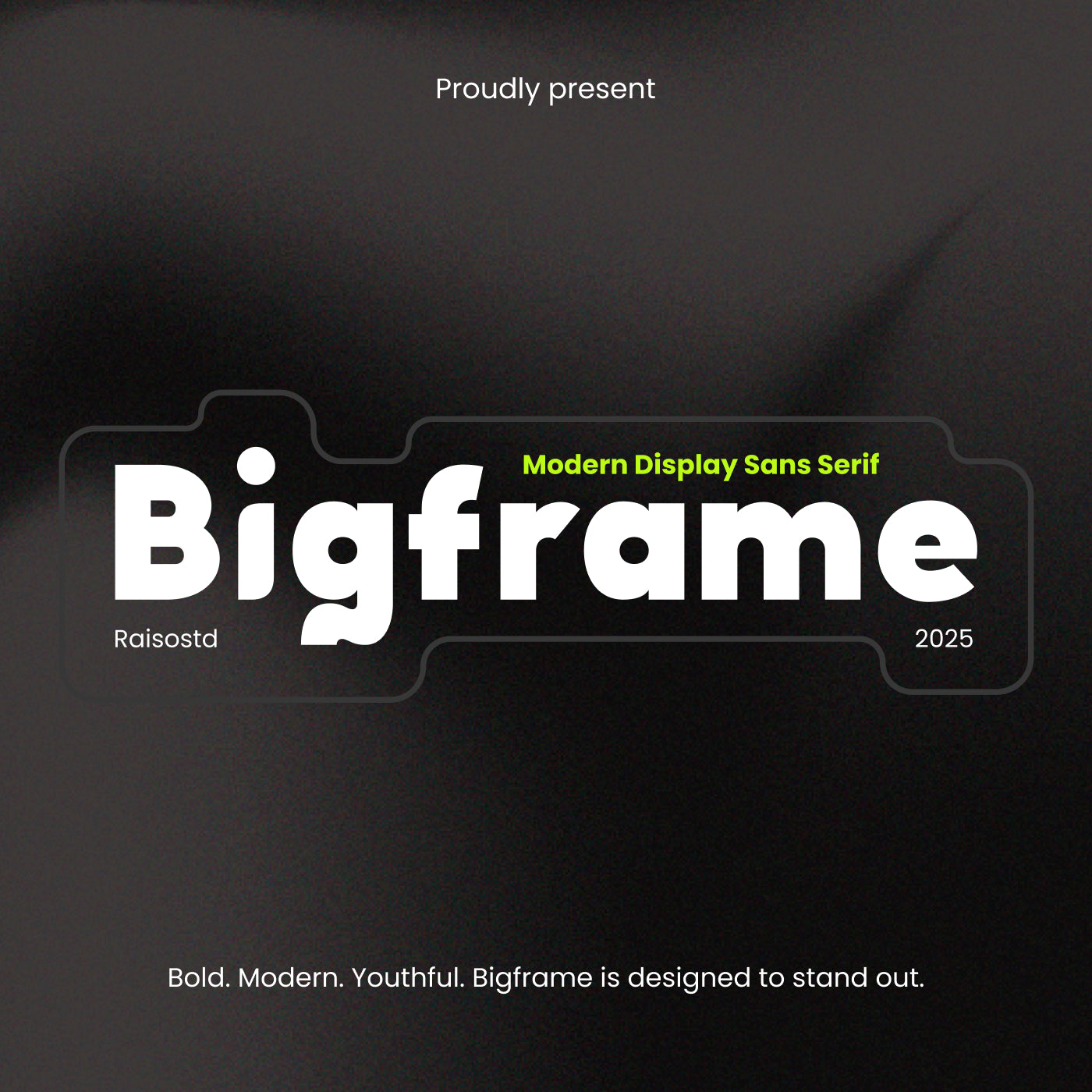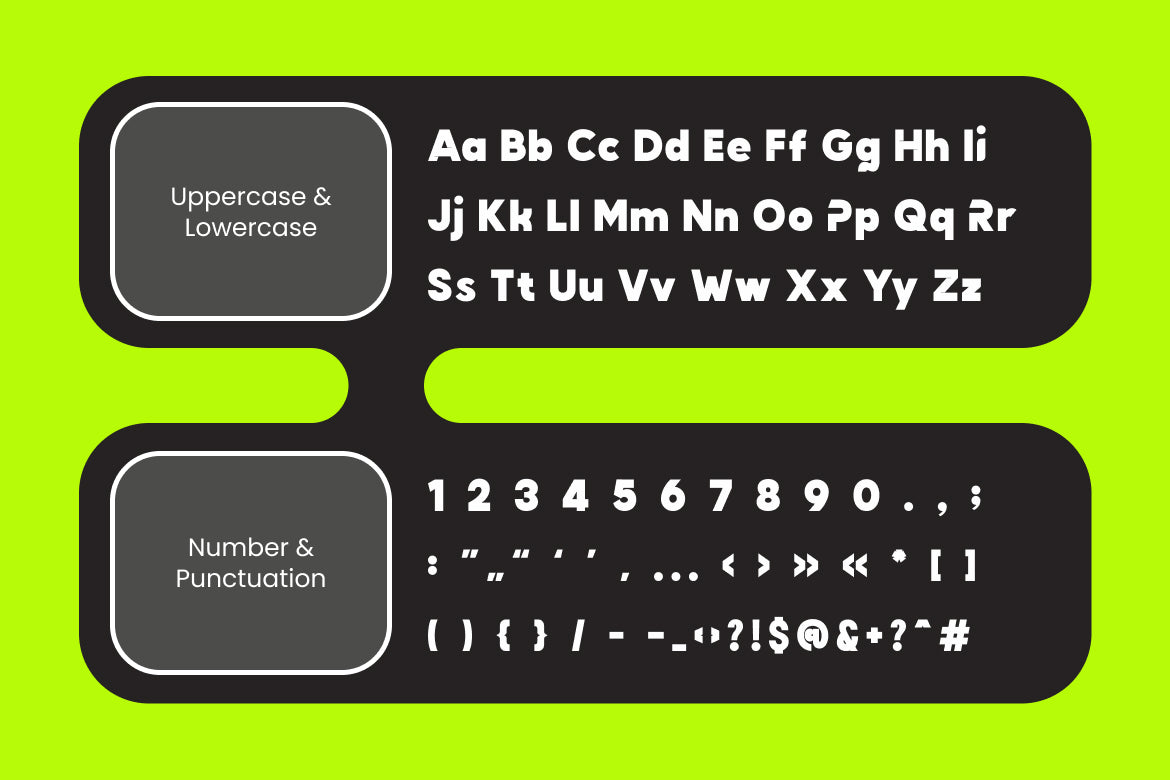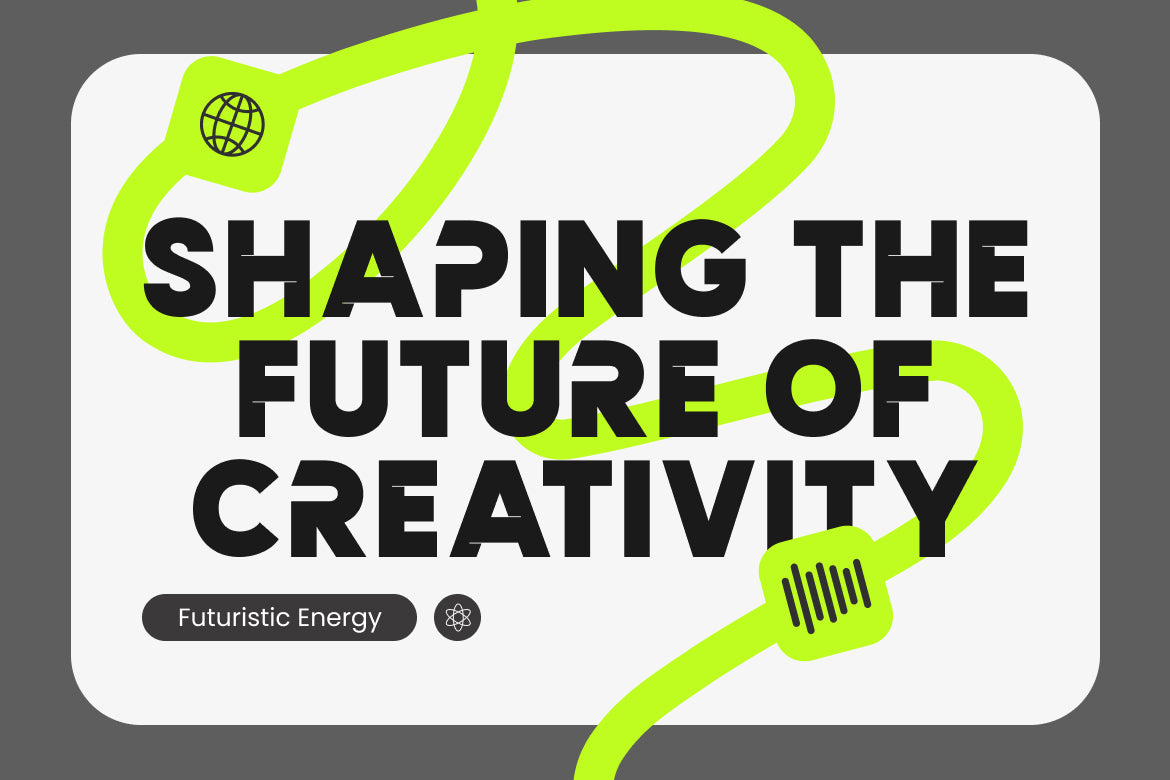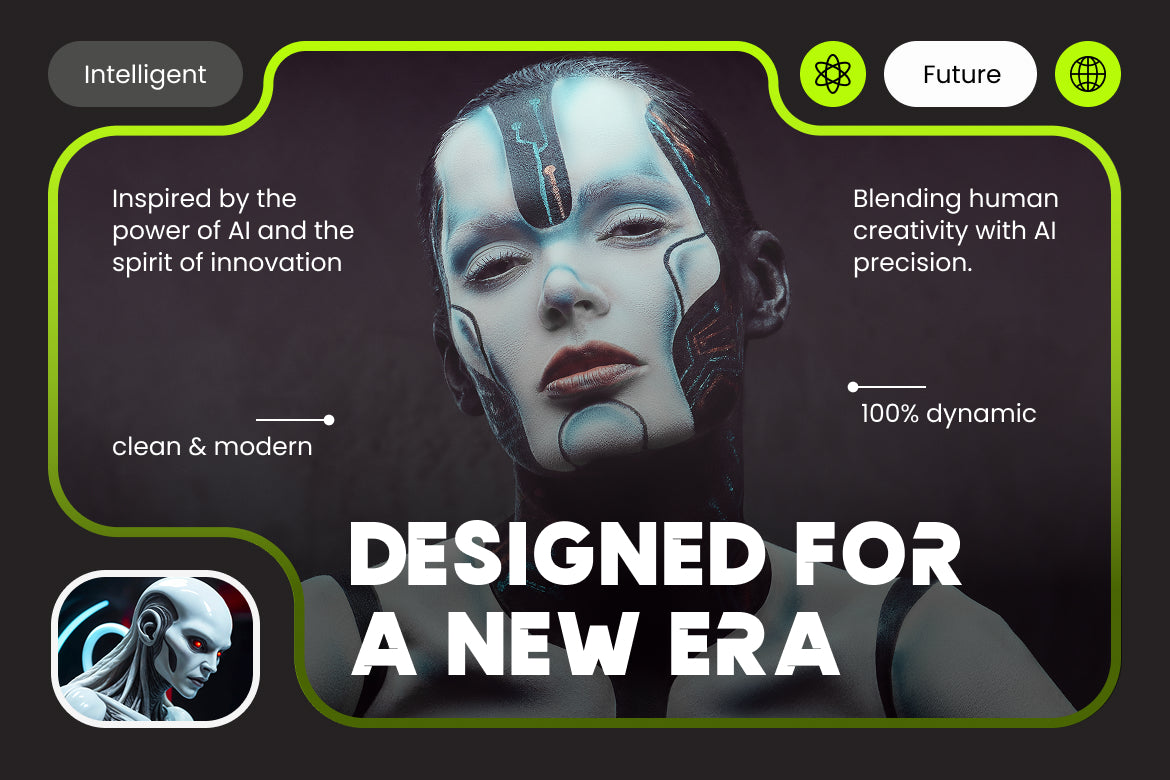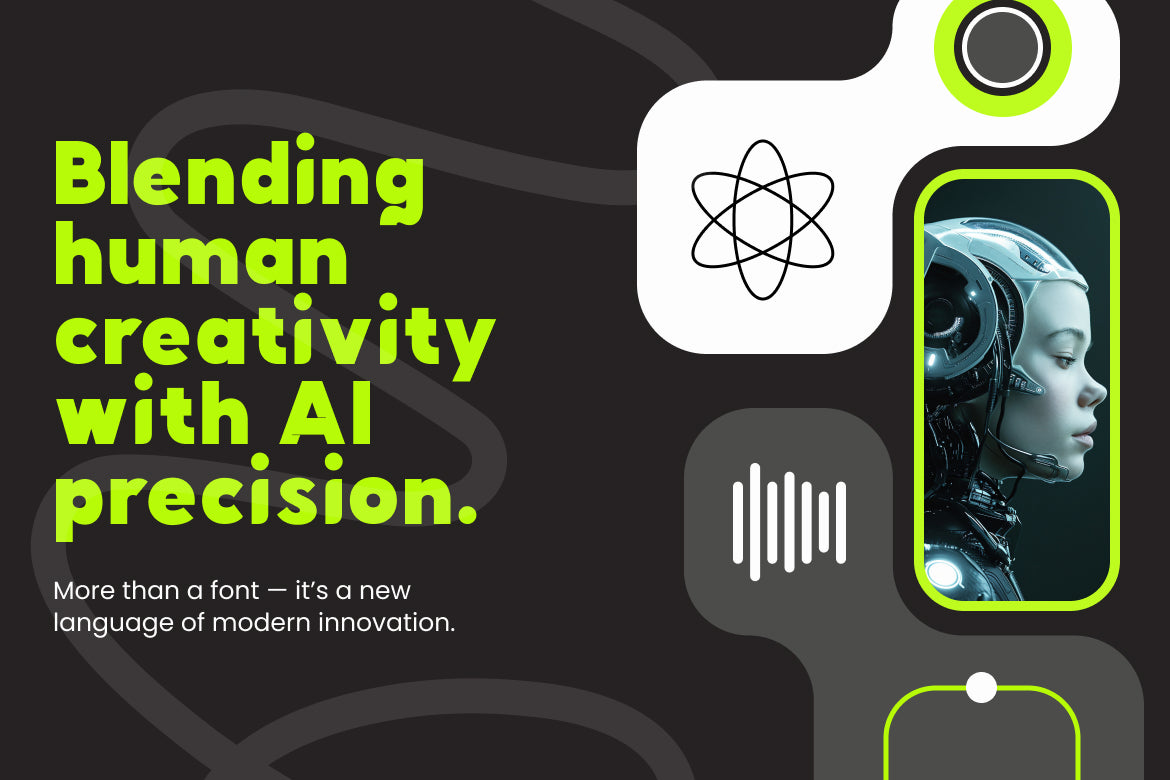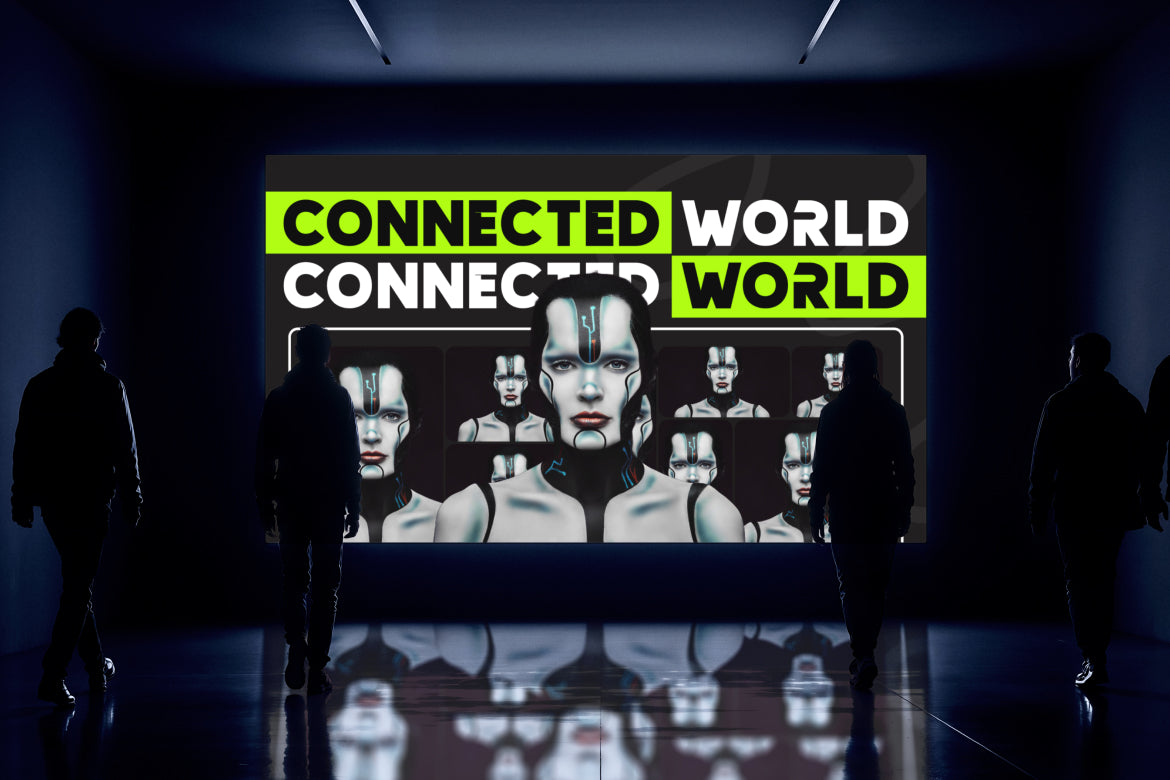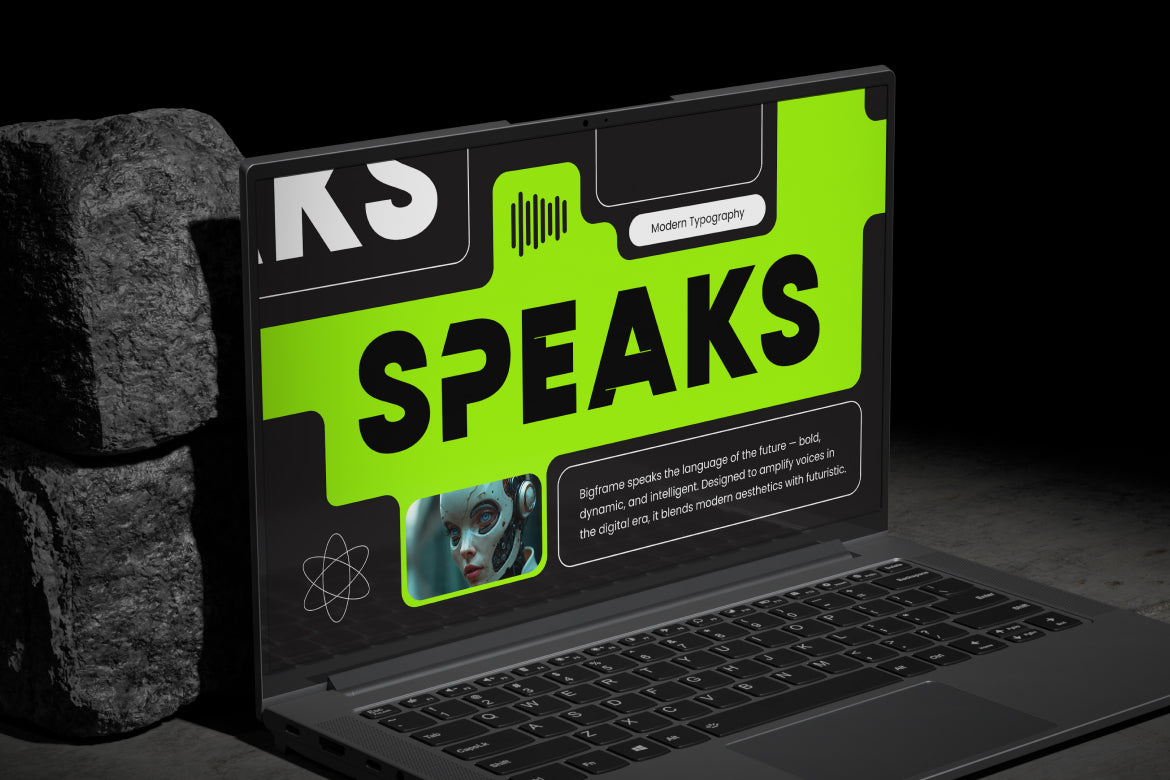
Bigframe Modern Display Sans Serif Font
Bigframe is a bold modern sans serif built for maximum impact. With its clean geometric shapes and striking weight, this typeface creates strong visual presence in every design. Its youthful energy and confident style make it the perfect tool for brands that want to stand out and communicate with clarity.
This font radiates boldness and versatility ideal for projects that demand attention and modern aesthetics. From startup branding to editorial layouts, gaming graphics, and digital campaigns, Bigframe gives your message the power it needs to dominate the visual space.
Relevance and Use Cases is perfect for startup branding, gaming logos, esports graphics, technology campaigns, editorial headlines, modern posters, social media content, digital ads, product packaging, youth-oriented merchandise, and bold creative marketing projects.
Bigframe is a bold modern sans serif display font featuring clean geometric shapes and uppercase, lowercase, numeral, and punctuation characters. It is available in TTF, OTF, and WOFF formats.